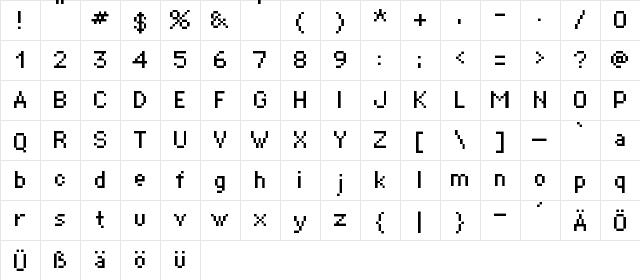
Supertext 01 Regular
Design Context for Supertext 01 Typeface
Supertext 01 is a composed and adaptable typeface that performs quietly and consistently across a wide range of design contexts.